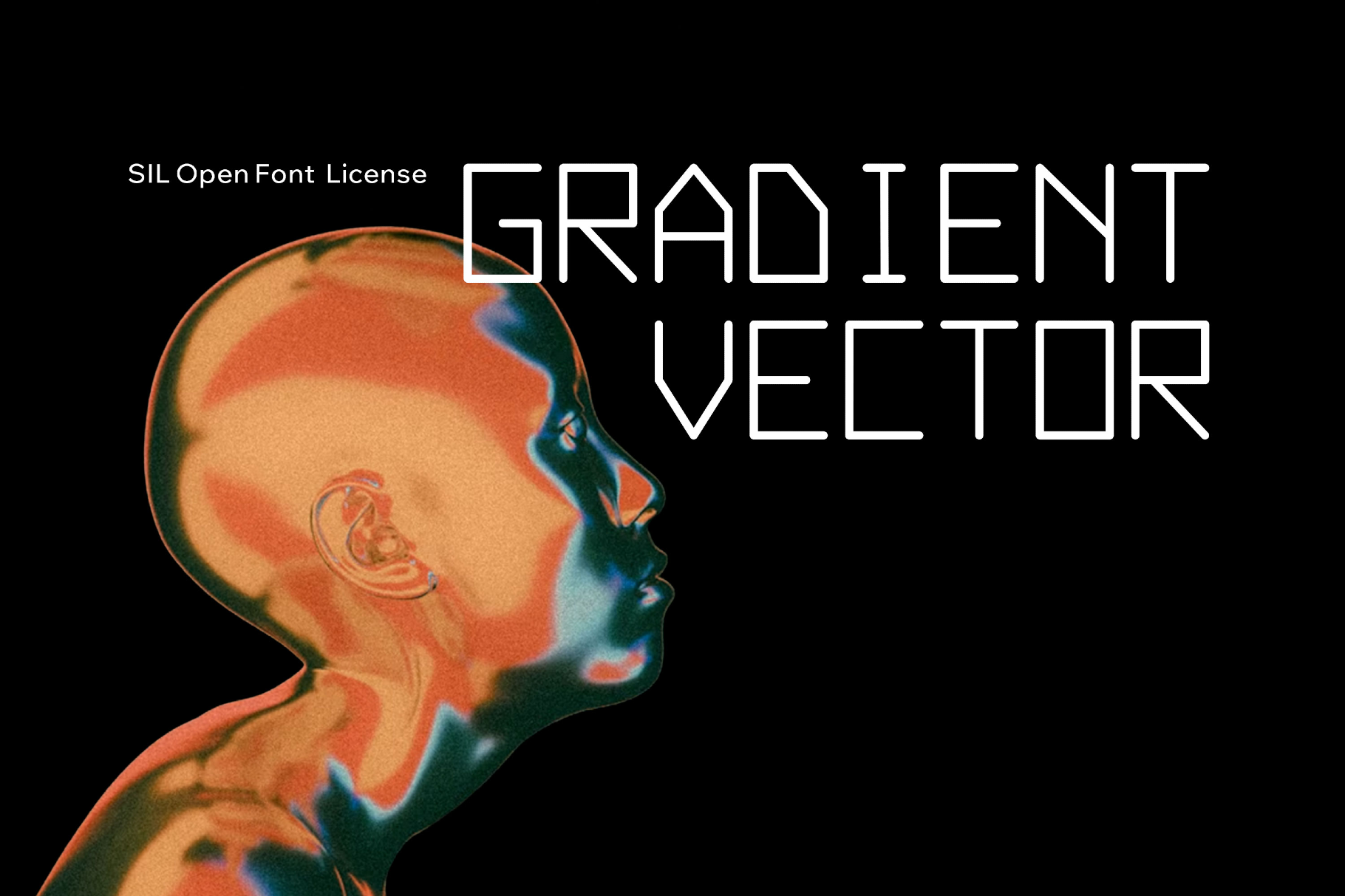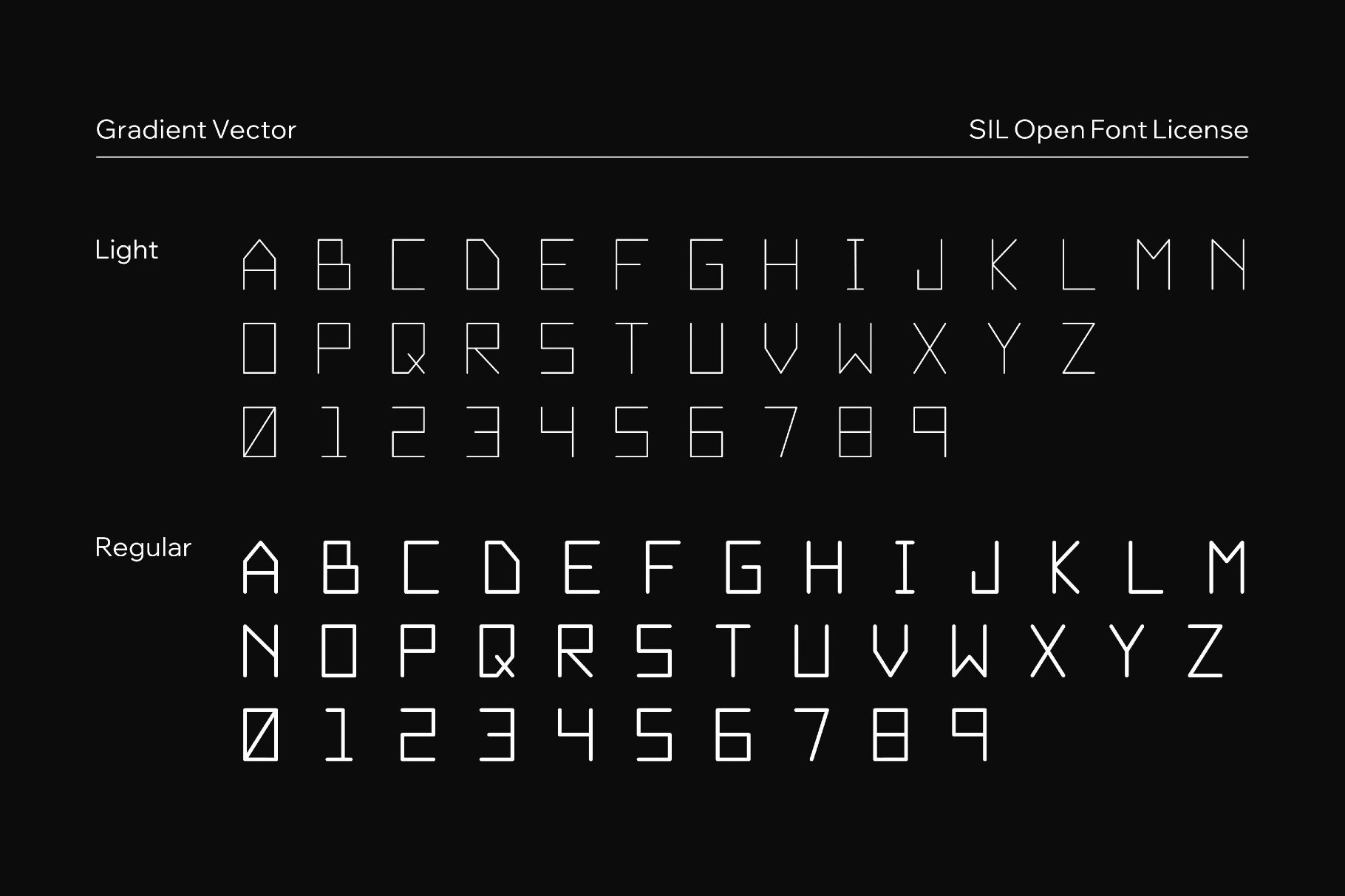
Gradient Vector - Tech Font
GradientVector
Gradient Vector takes its cue from vector-monitor arcades, wireframe simulators, and the bright futurism of late-1970s electronic graphics. The angular forms and geometric strokes make it a natural fit for game titles, tech identities, exhibition graphics, posters, album covers, interface concepts, event identities, and motion frames.